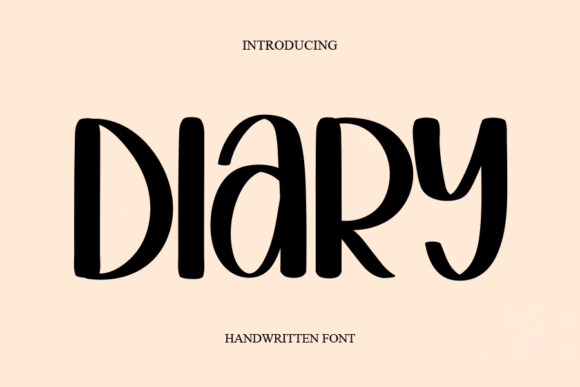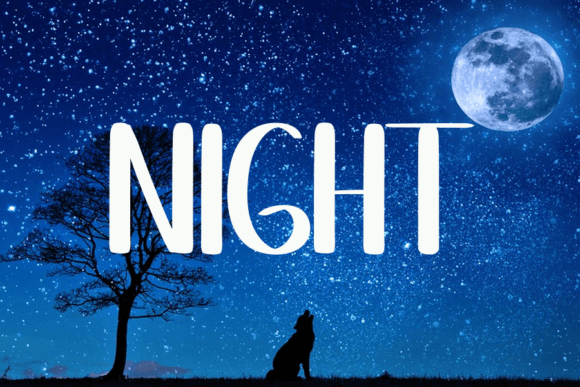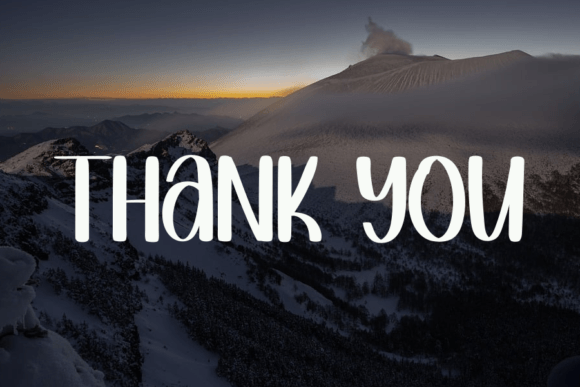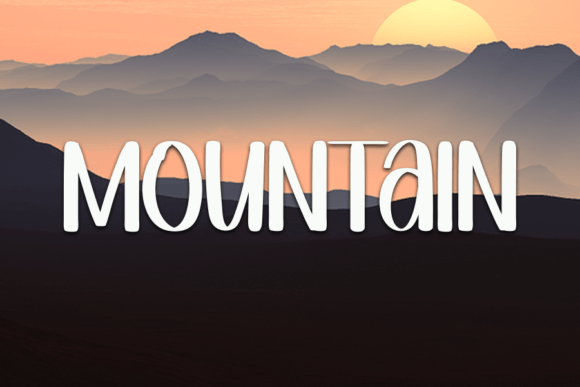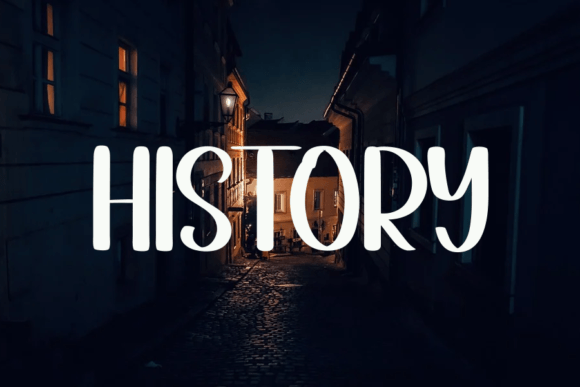
Diary
About Diary
diary is a sweet and beautiful handwritten font. Featuring characters that dance along the baseline, this font will add a cozy accent to any design project you wish to create!